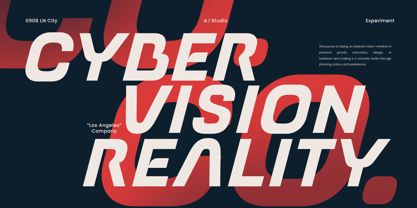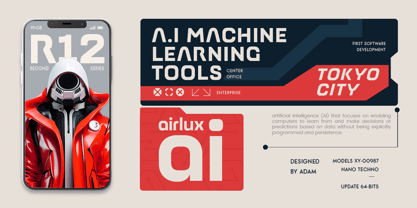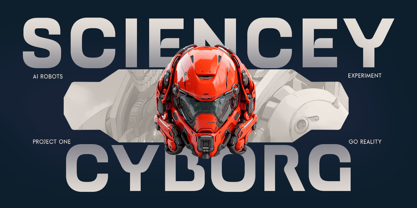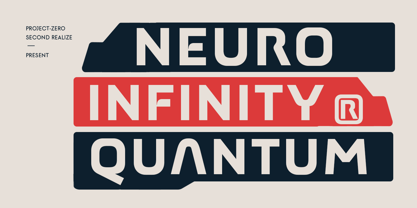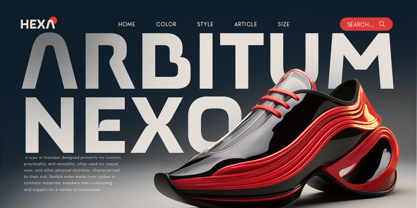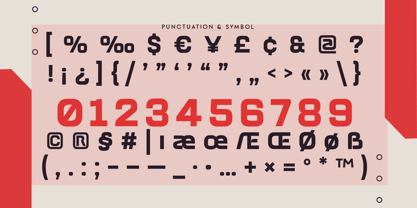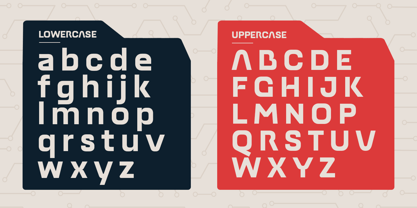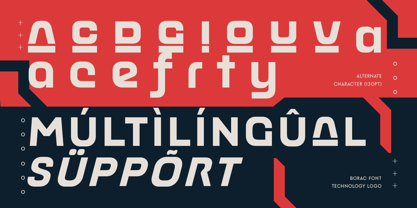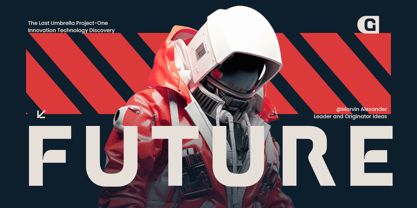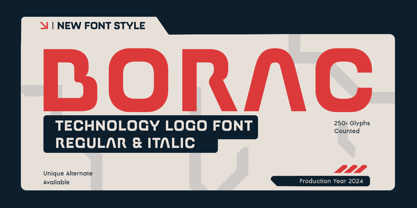
BORAC – Technology Logo Font
BORAC is a technology logo font designed to bring a sleek, modern, and futuristic aesthetic to your branding. Ideal for tech startups, digital products, software logos, and high-tech branding projects, it combines precision and clarity with cutting-edge style.
With geometric and clean letterforms, BORAC ensures readability and professional appeal in both digital and print applications. Perfect for designers seeking a modern tech identity.
BORAC – Technology Logo Font Features
Modern and futuristic character set
Perfect for technology logos and branding
Uppercase, lowercase, numerals, and punctuation included
OpenType features for extra versatility
Multilingual support for:
Afrikaans, Albanian, Asu, Basque, Bemba, Bena, Breton, Chiga, Cornish, Dutch, English, Estonian, Filipino, Finnish, Friulian, Galician, German, Gusii, Indonesian, Irish, Italian, Kabuverdianu, Kalenjin, Kinyarwanda, Luo, Luxembourgish, Luyia, Machame, Makhuwa-Meetto, Makonde, Malagasy, Manx, Morisyen, North Ndebele, Nyankole, Oromo, Portuguese, Quechua, Romansh, Rombo, Rundi, Rwa, Samburu, Sango, Sangu, Scottish Gaelic, Sena, Shambala, Shona, Soga, Somali, Spanish, Swahili, Swedish, Swiss, and more.